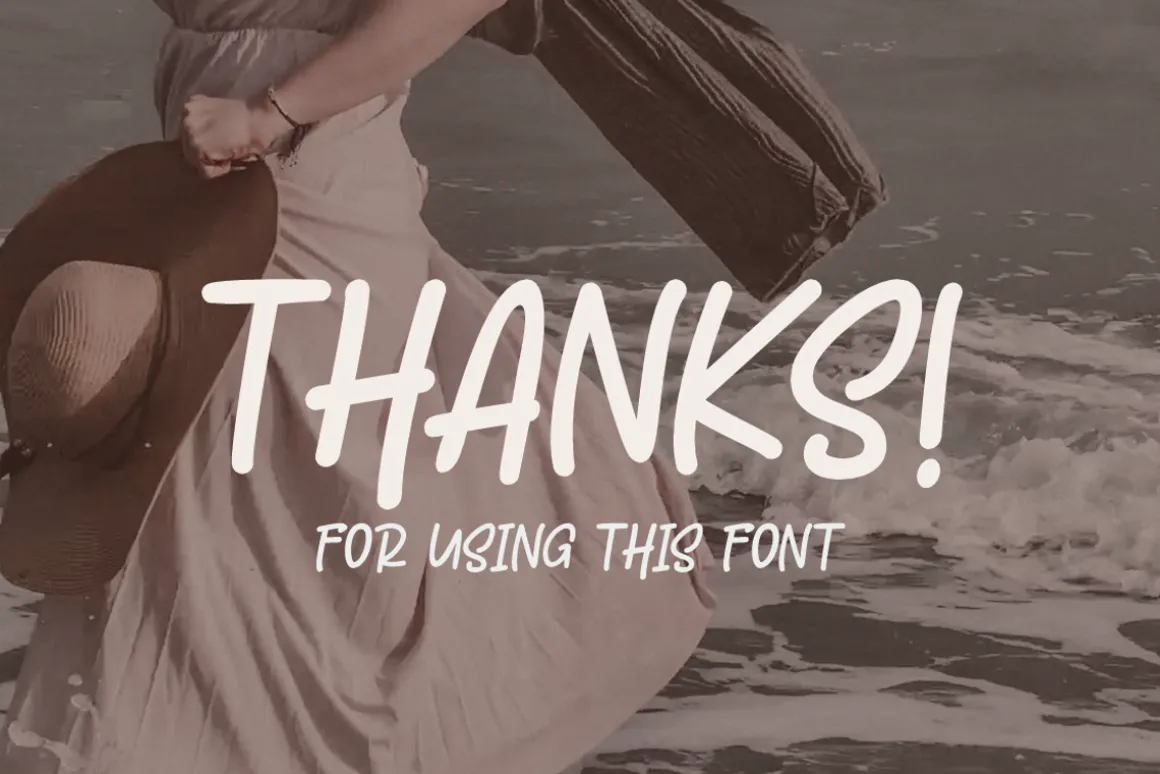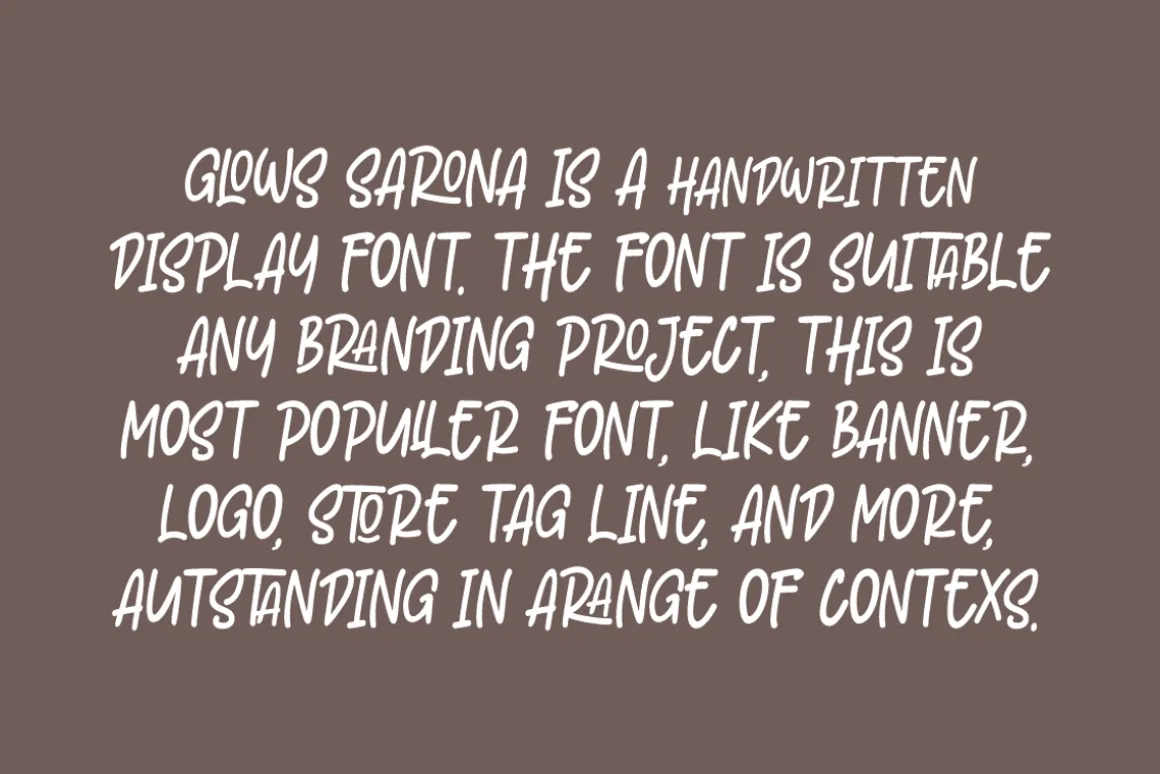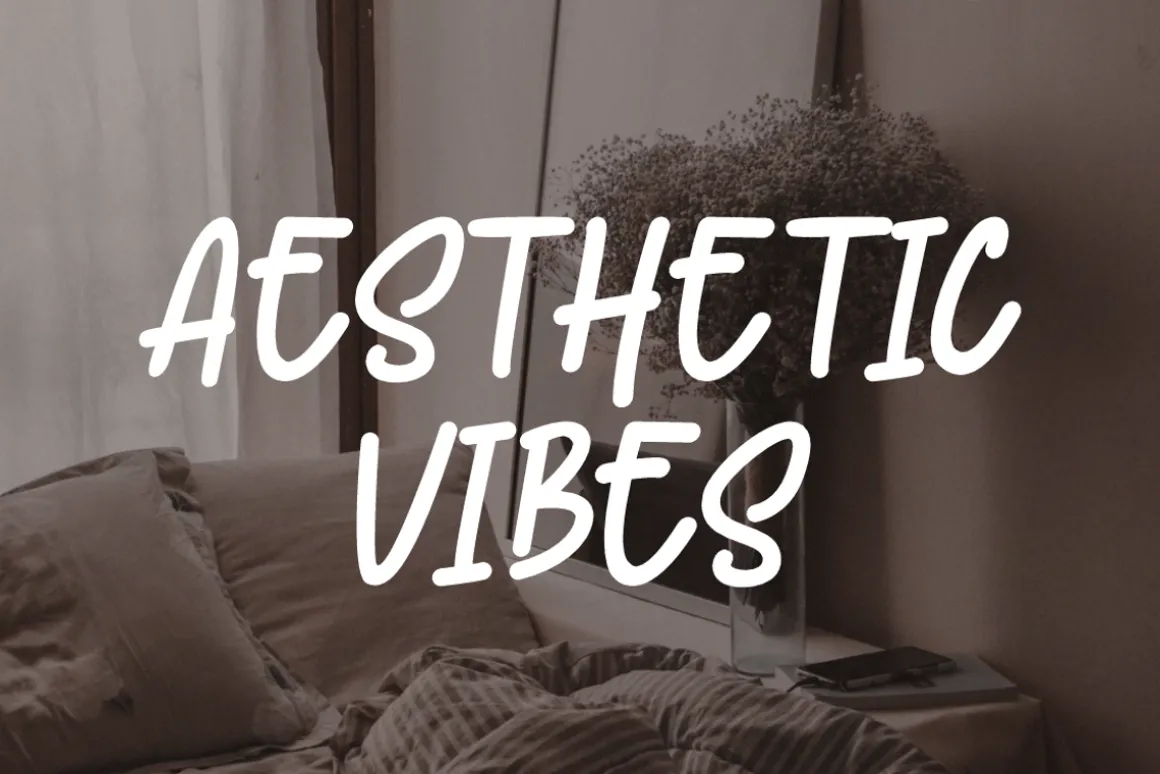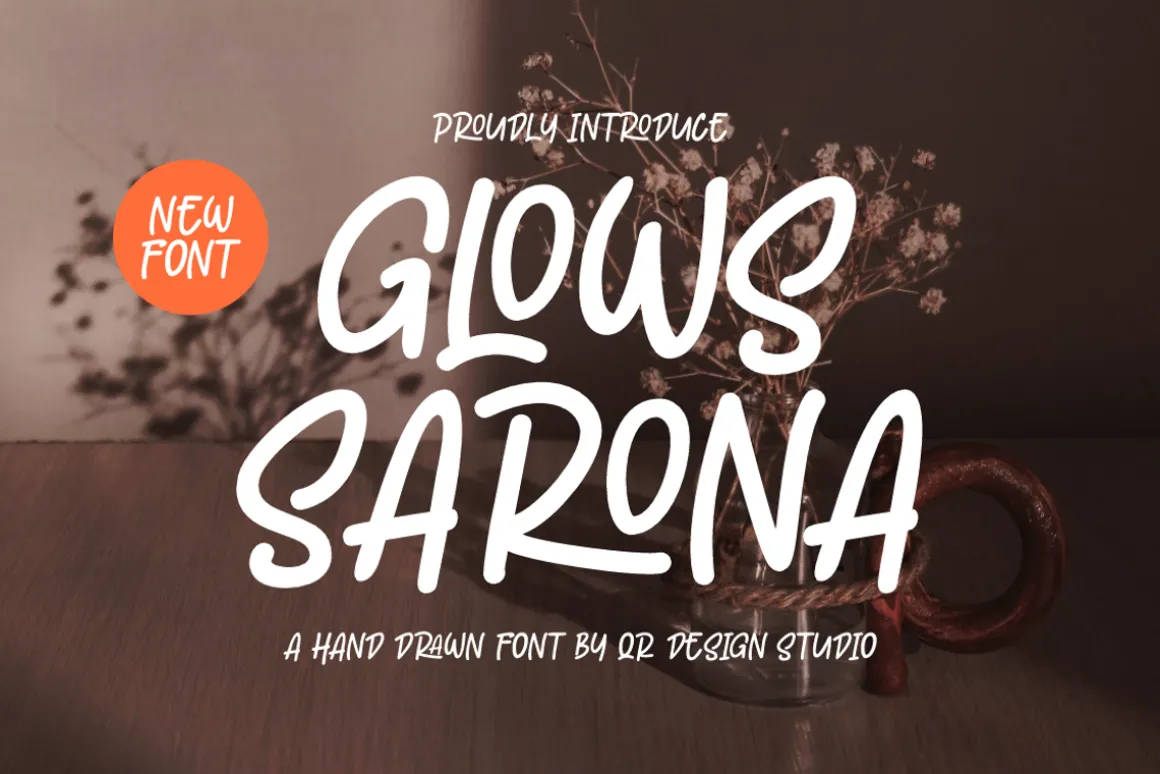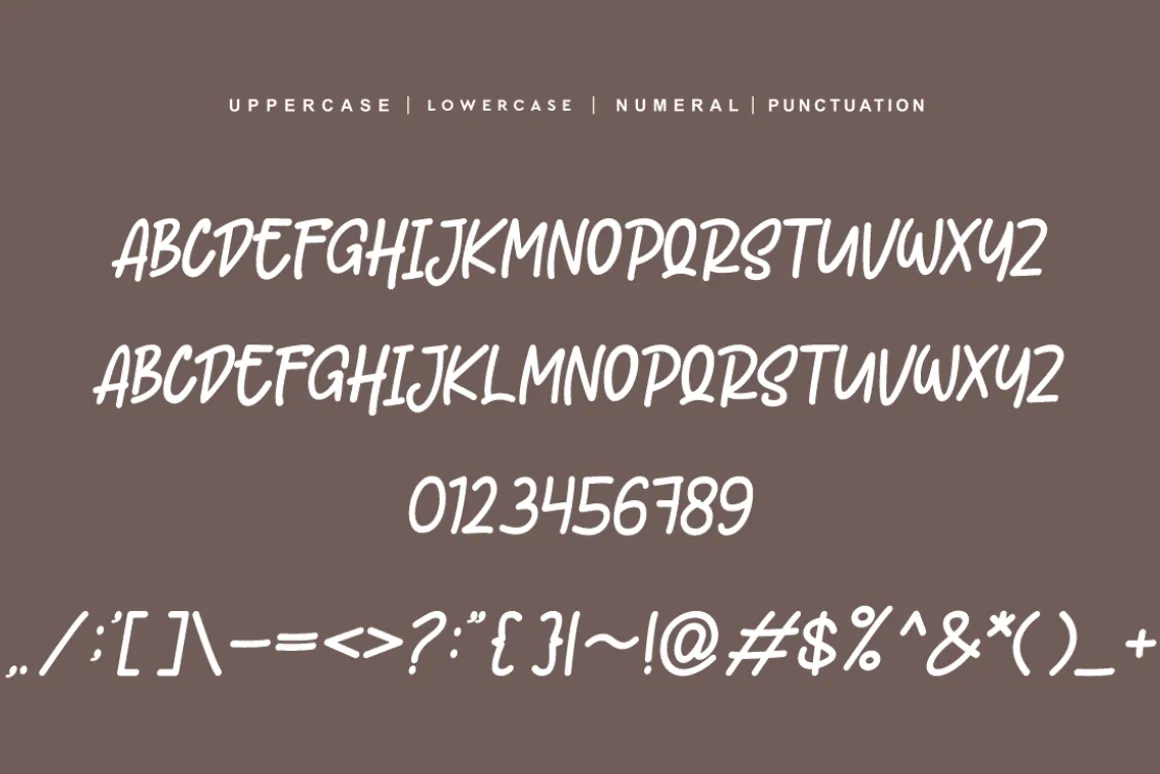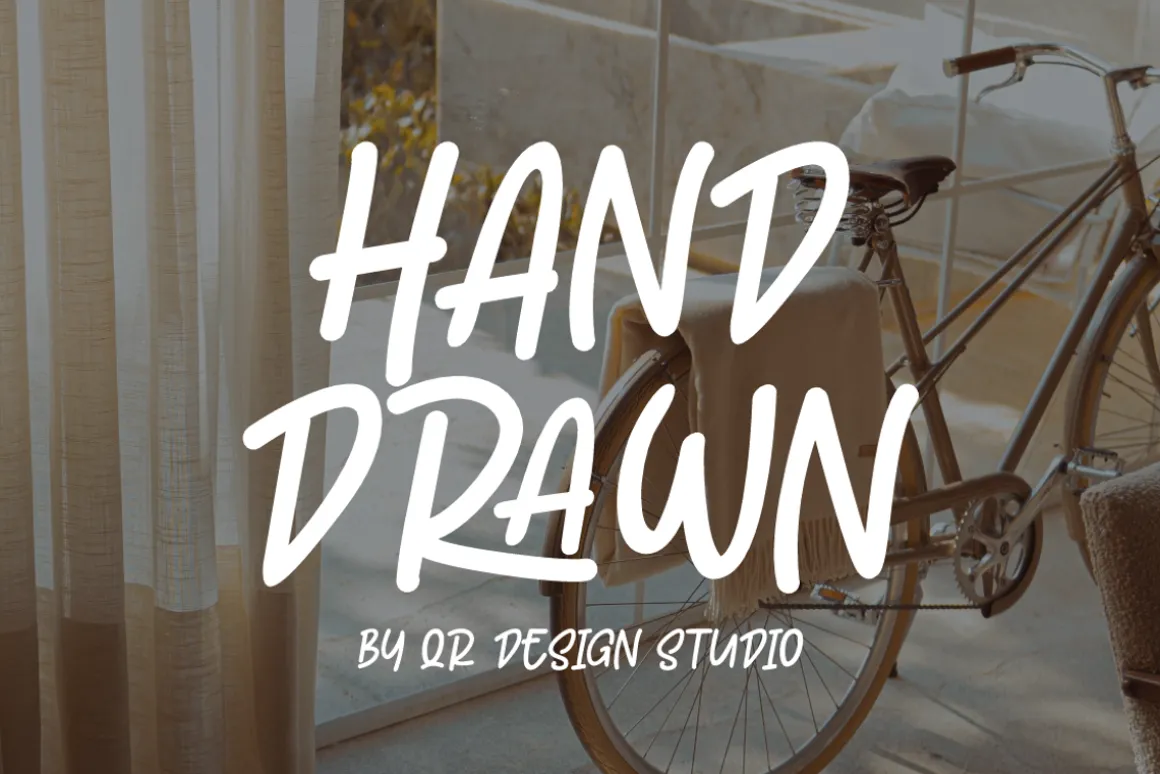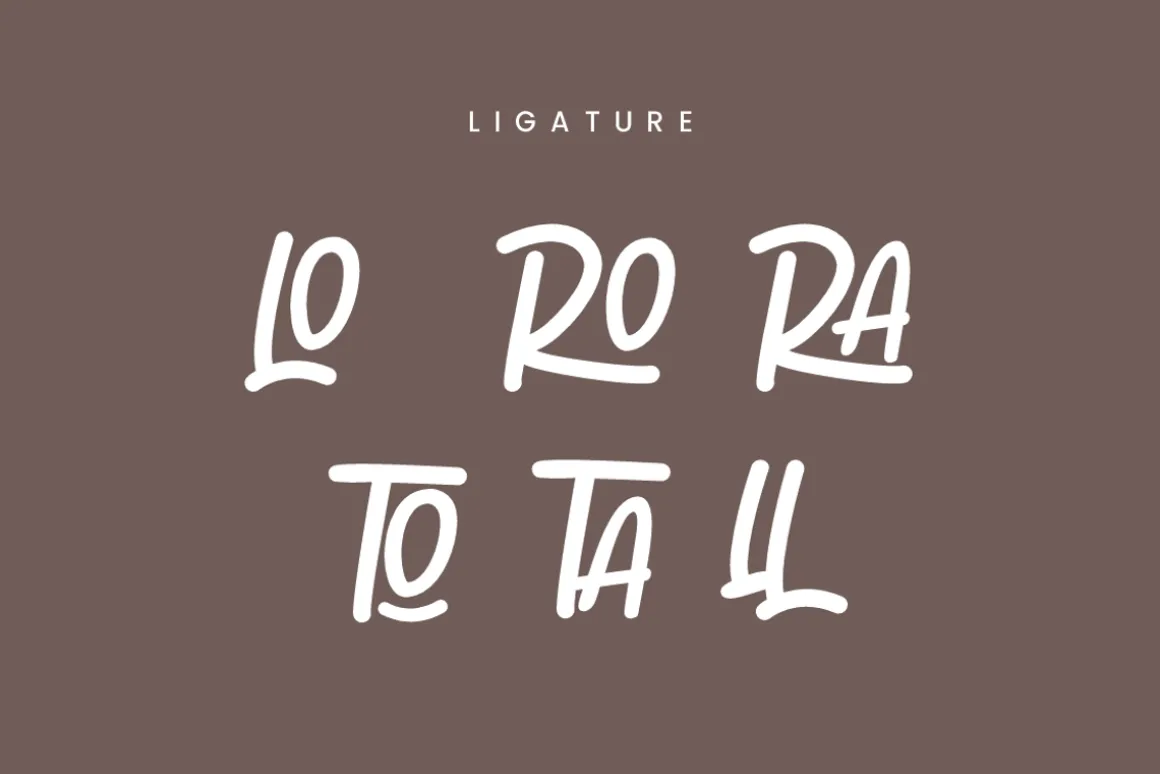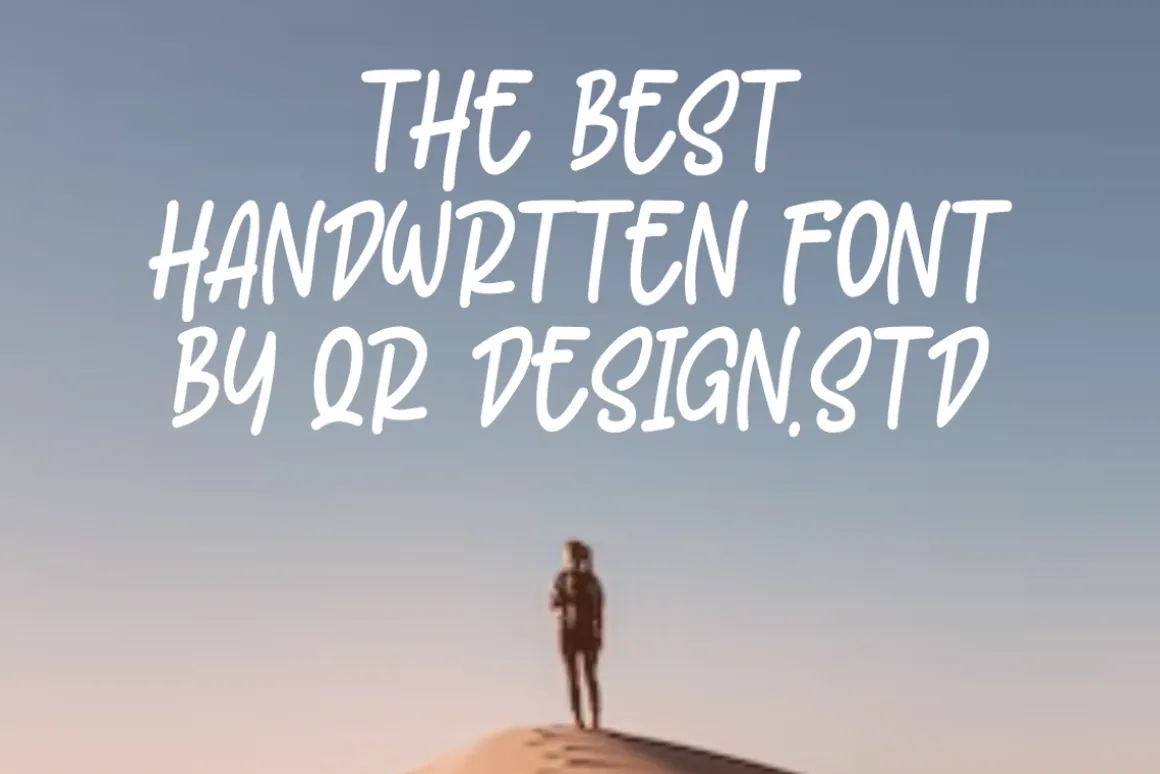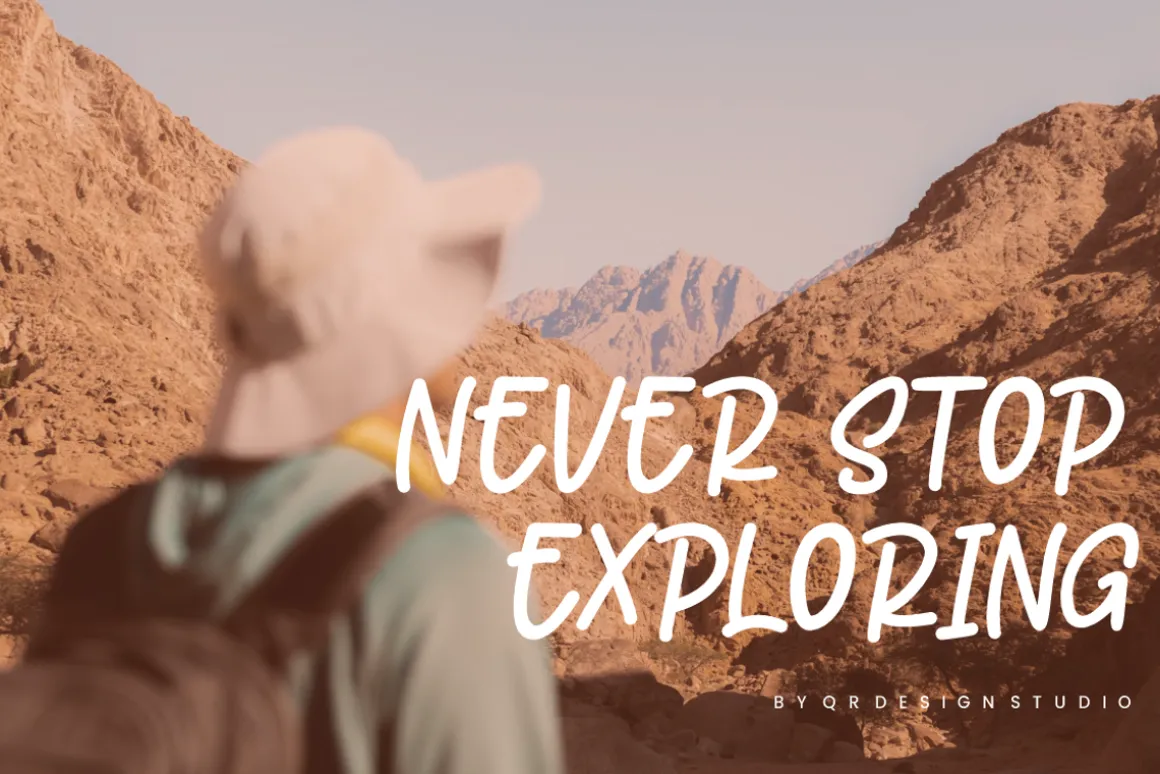
Glows Sarona – Hand Drawn Font is a handwritten and authentic display font.The font is suitable for any branding project like stylish, poster, logo, sport, and many more.Outstanding in a wide range of contexts.